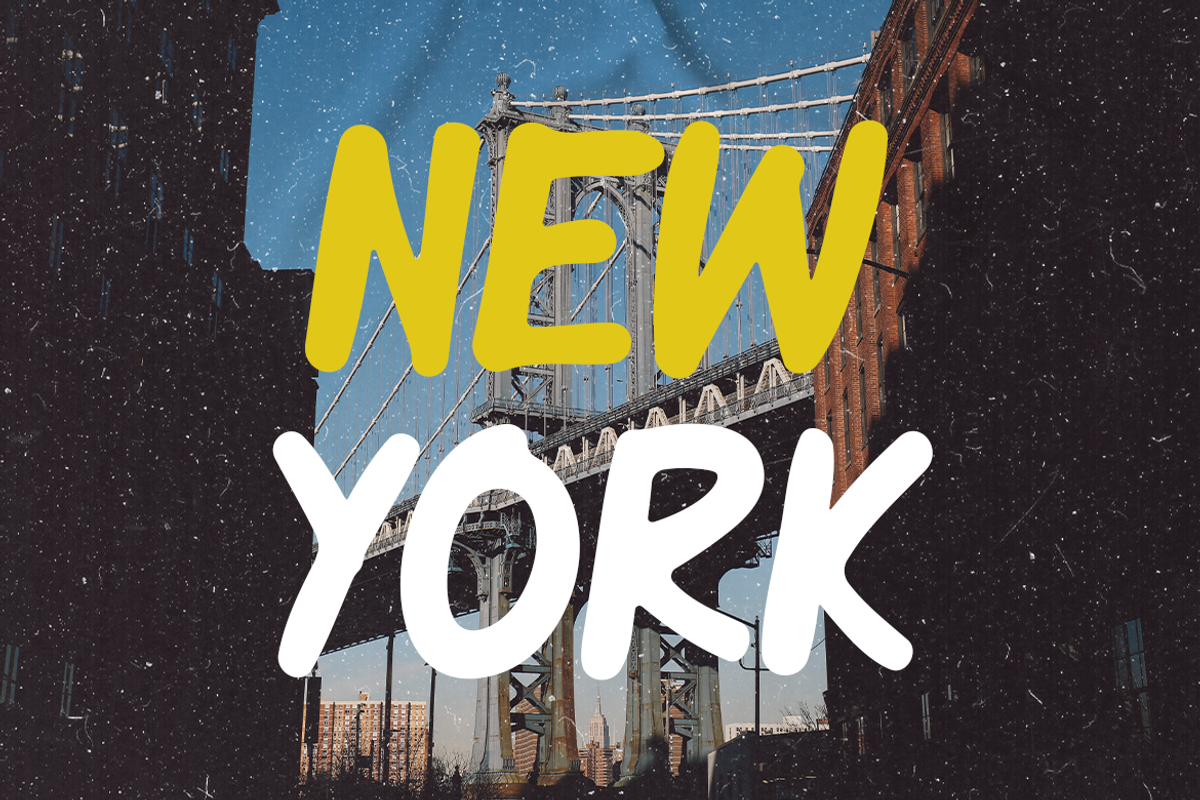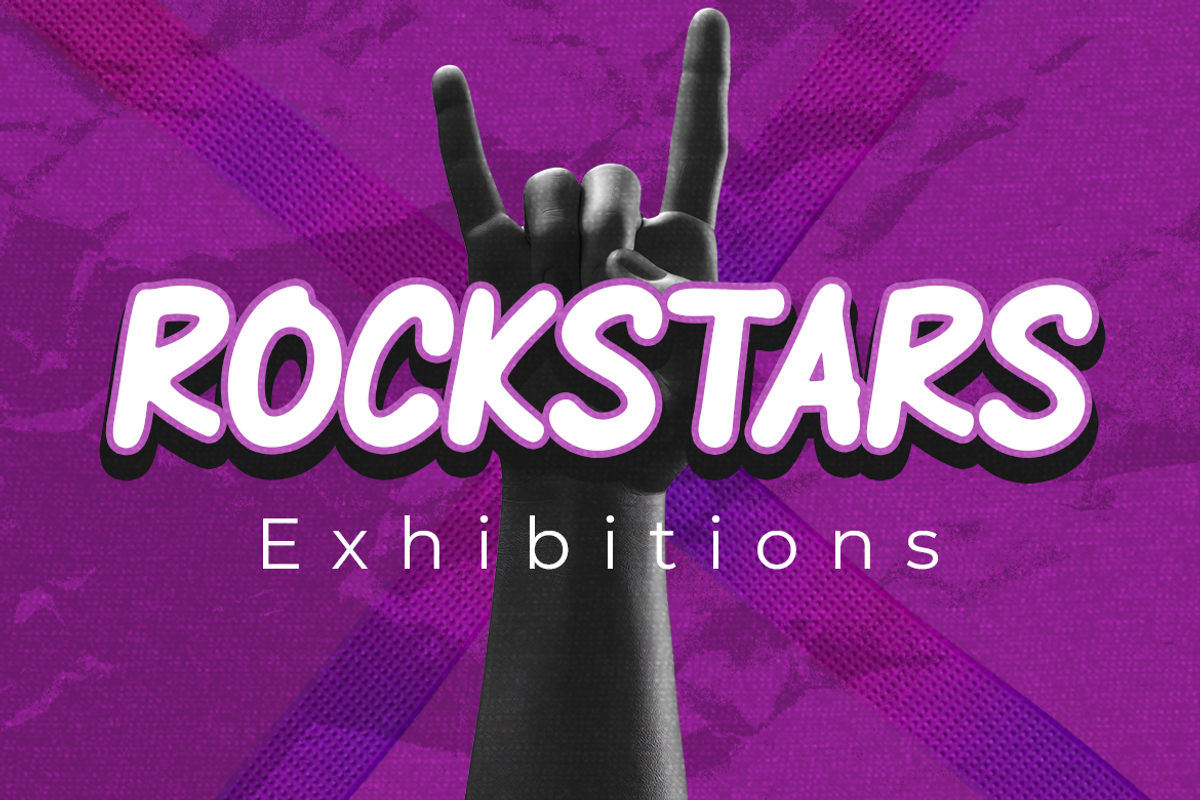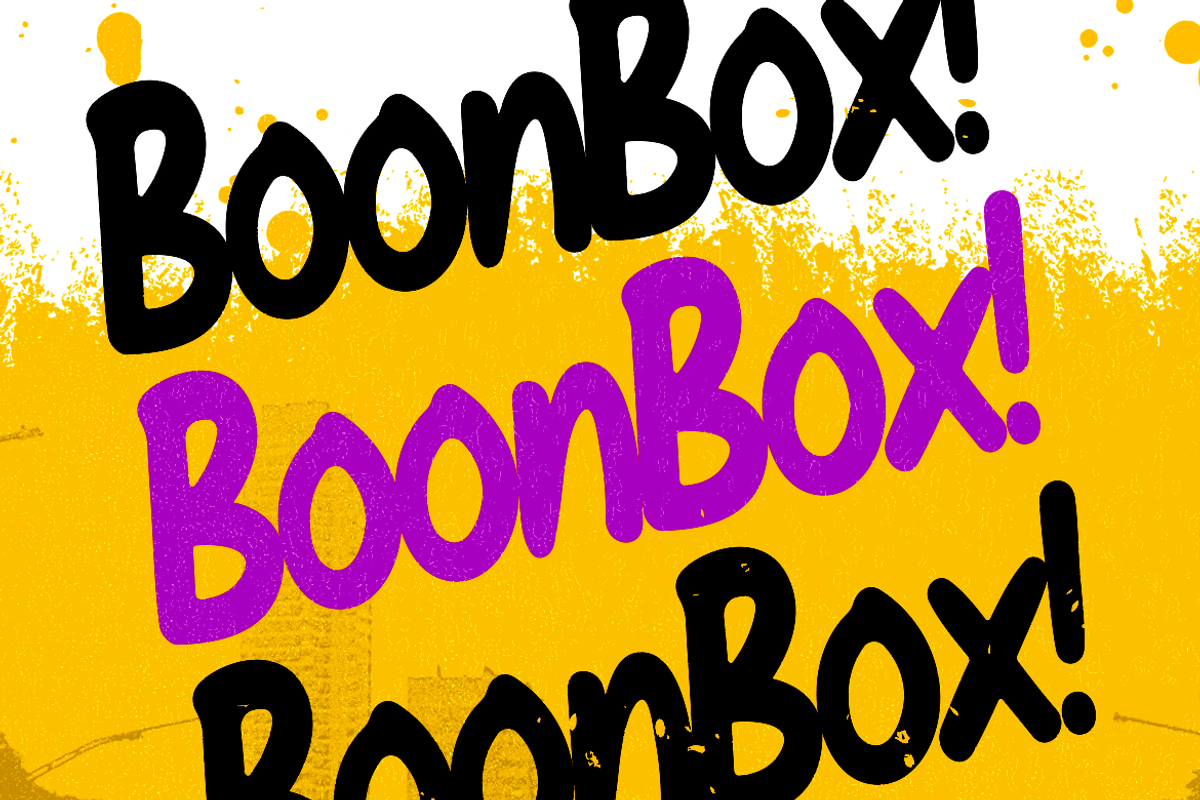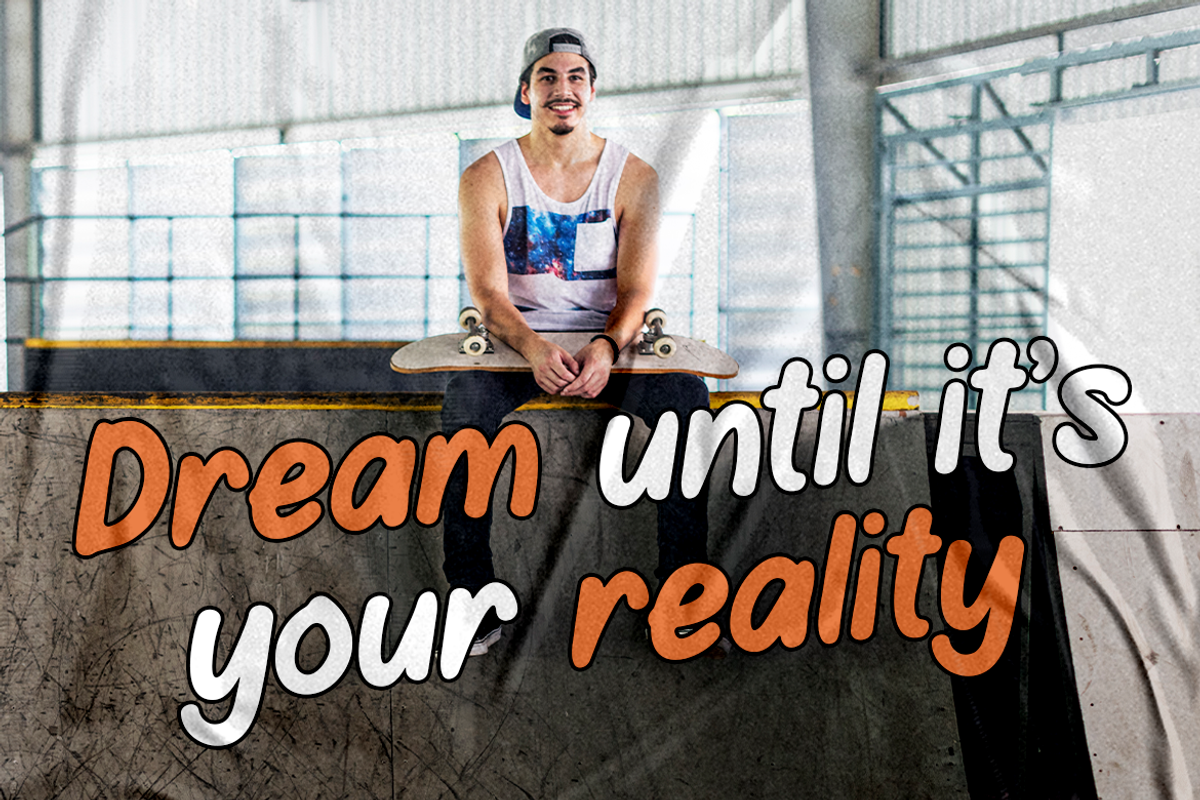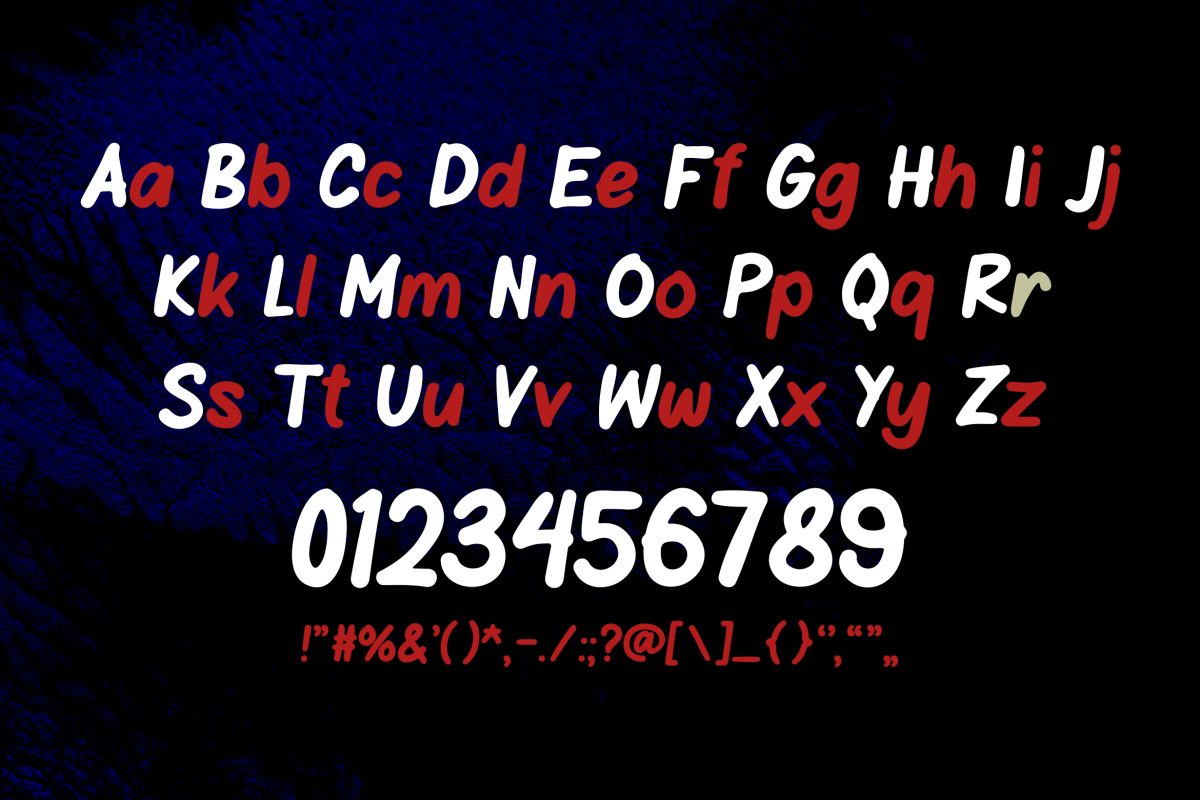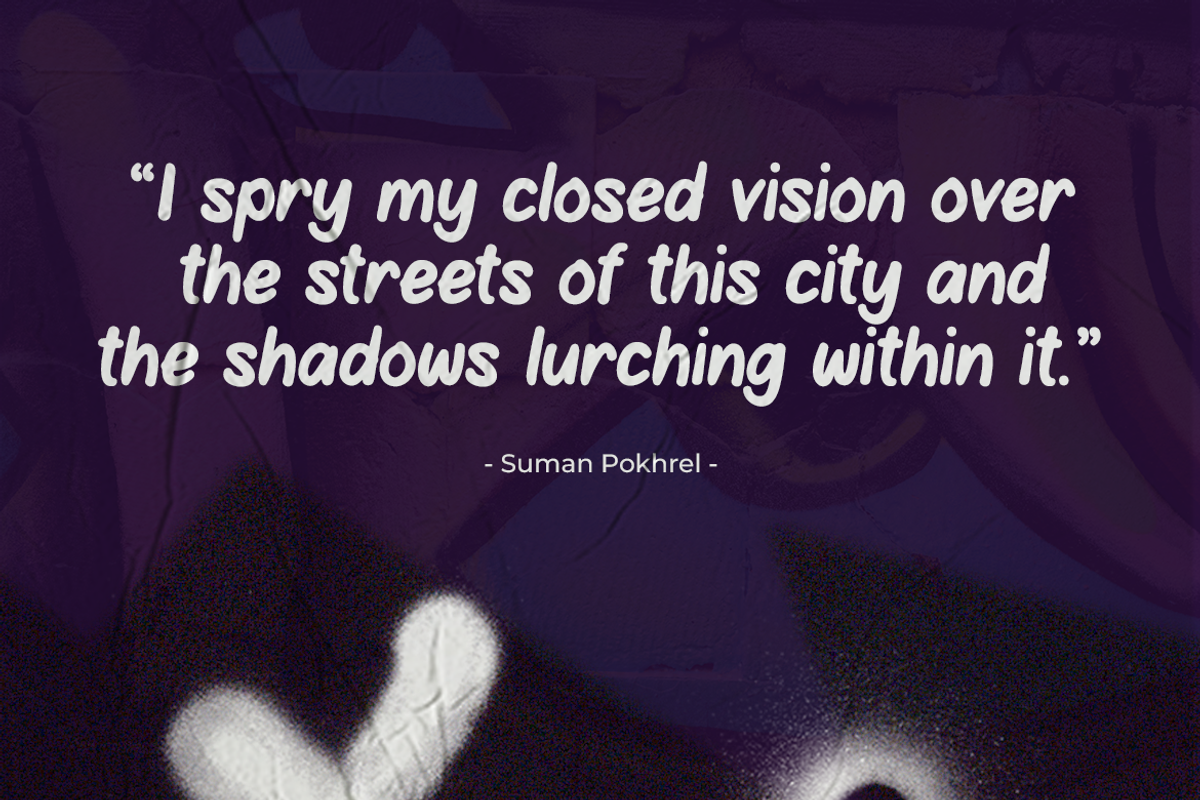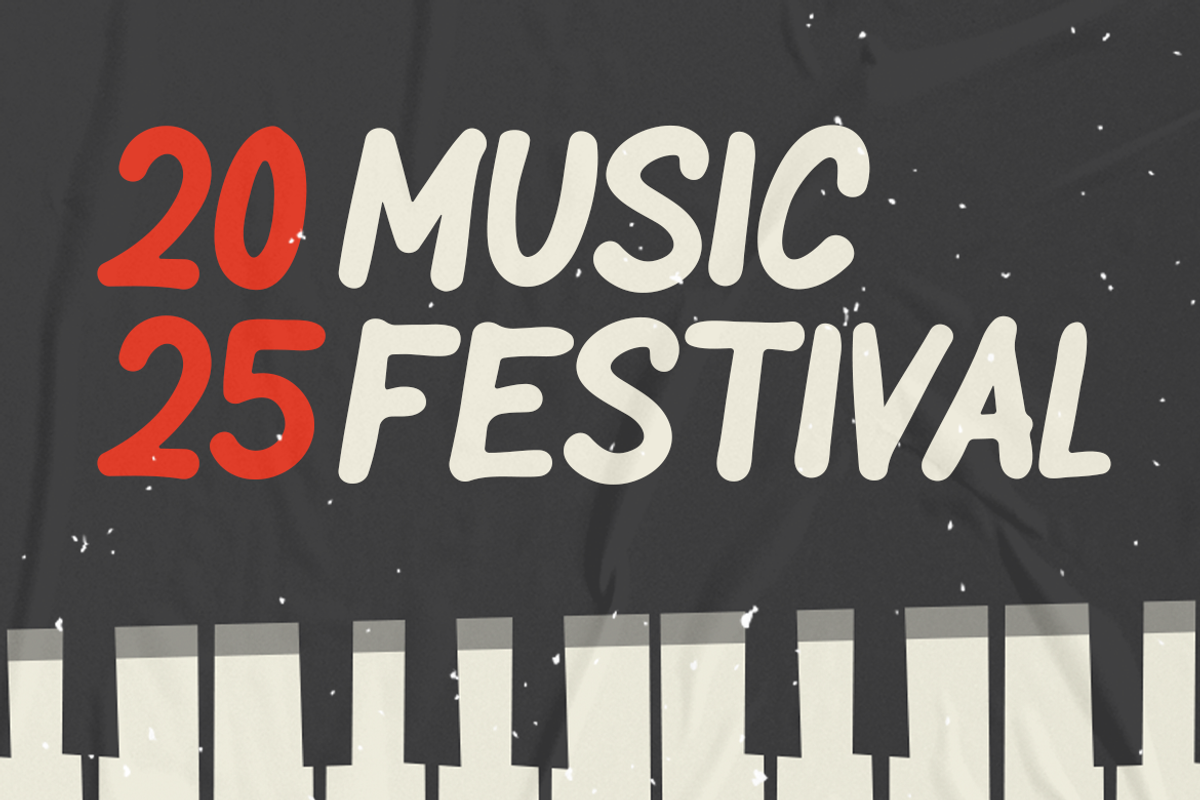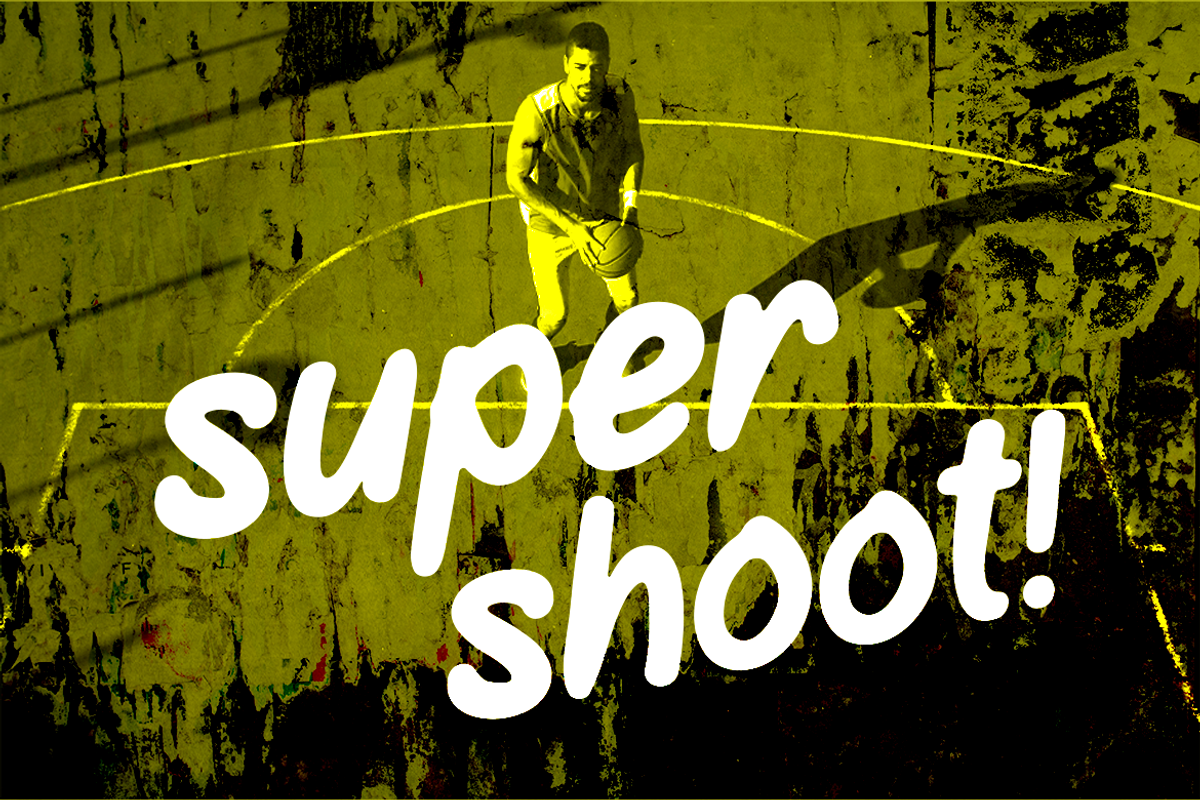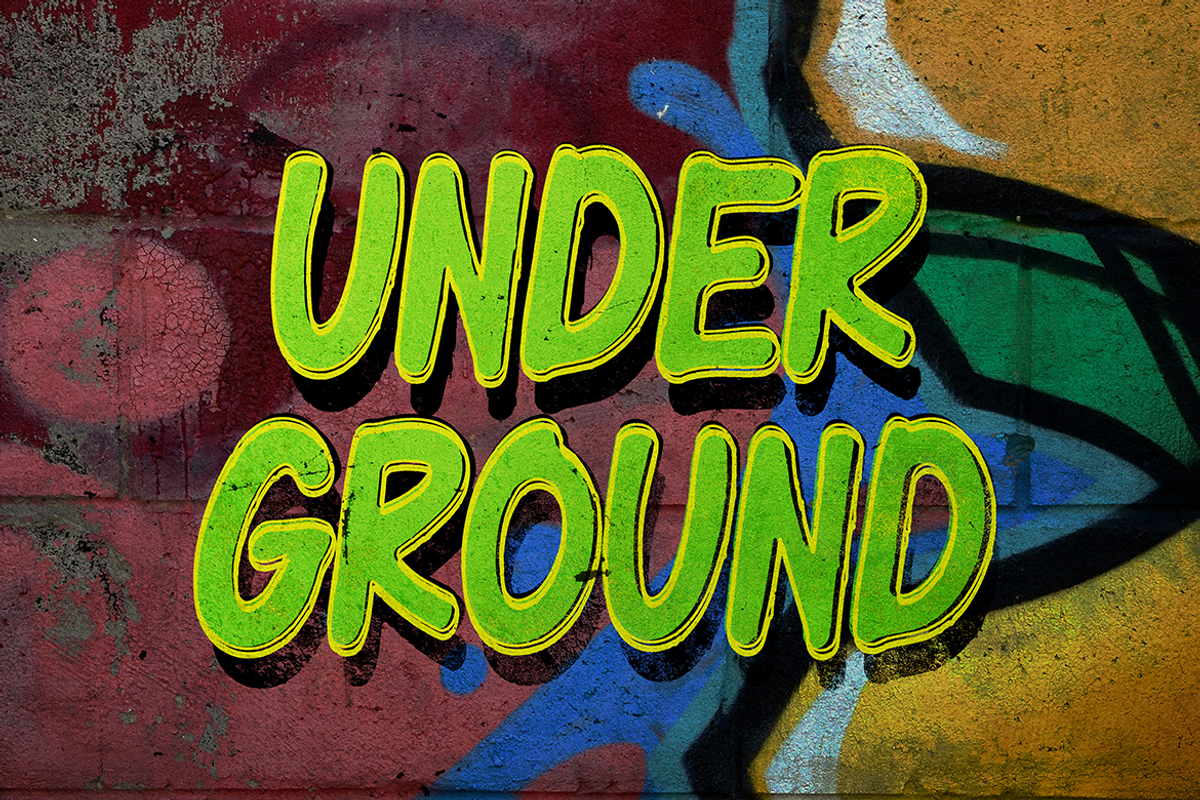
Power Up
Graffiti font Power-Up is a playful, energetic typeface that captures the bold spirit of street art. With rounded, thick strokes and a hand-drawn charm, this font brings fun and vitality to any project. Power-Up combines a modern graffiti look with a clean, approachable style, making it ideal for designs that need positivity and energy. Its simplicity and boldness ensure your text stands out while staying readable. Whether you’re creating digital content, print media, or branding materials, Power-Up adds a lively edge to your work and keeps your audience engaged.
Furthermore, Power-Up’s design emphasizes a youthful, vibrant vibe. It feels both spontaneous and polished, making it versatile for many projects. The rounded letters give it a friendly, welcoming feel, while the bold strokes provide strong visual presence. Power-Up suits projects that want to express creativity, movement, and fun without being too intense. This font is perfect for titles, logos, posters, and banners that aim to capture attention with a modern, energetic touch.